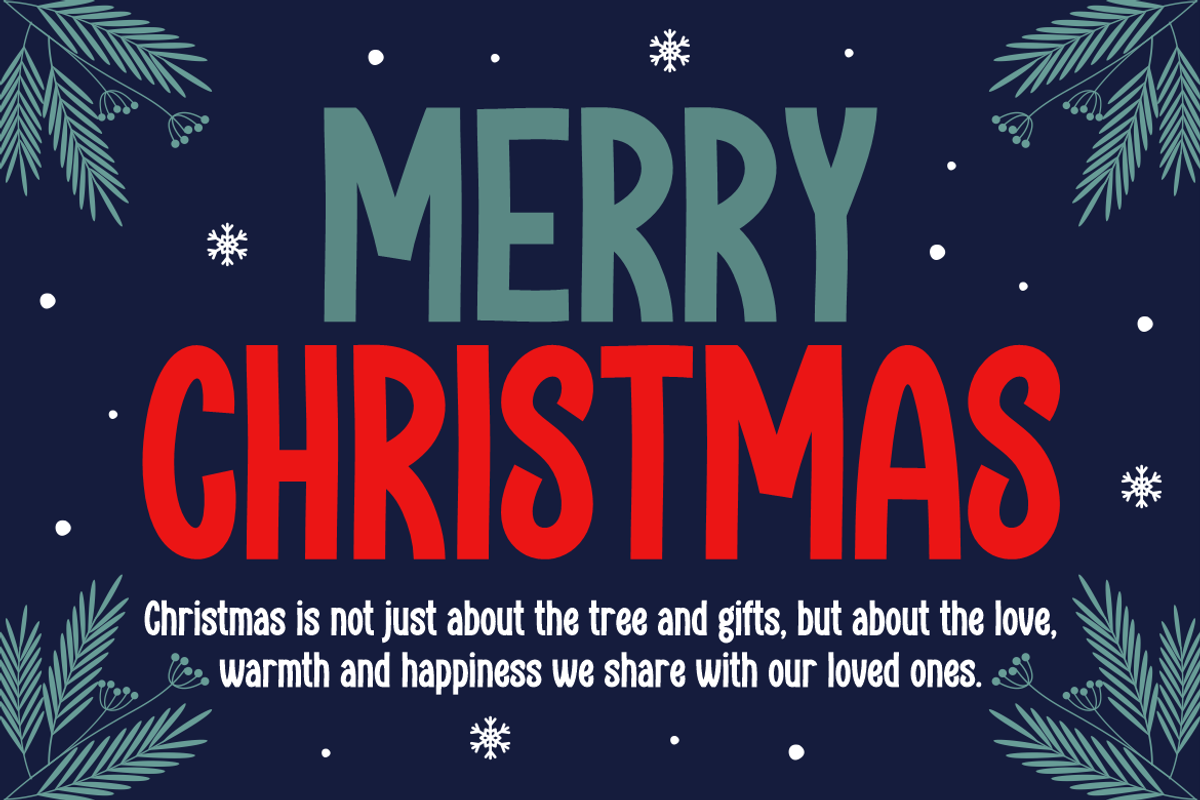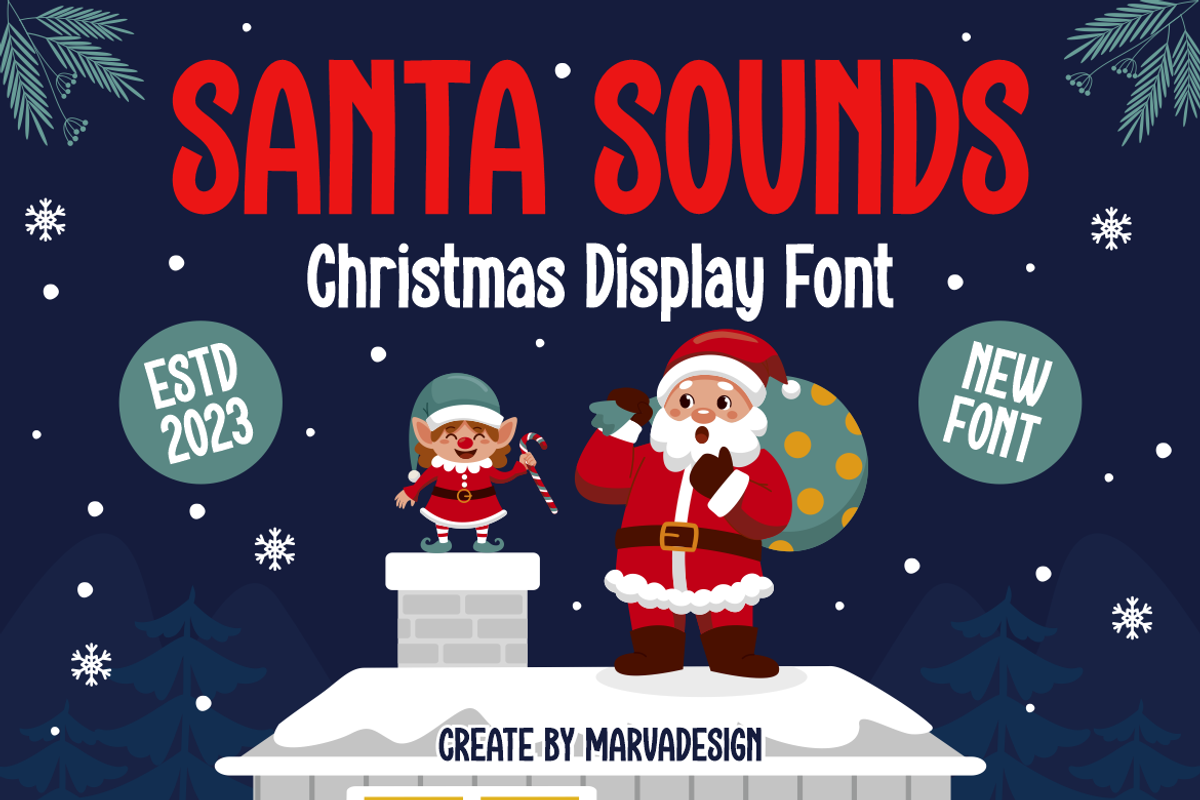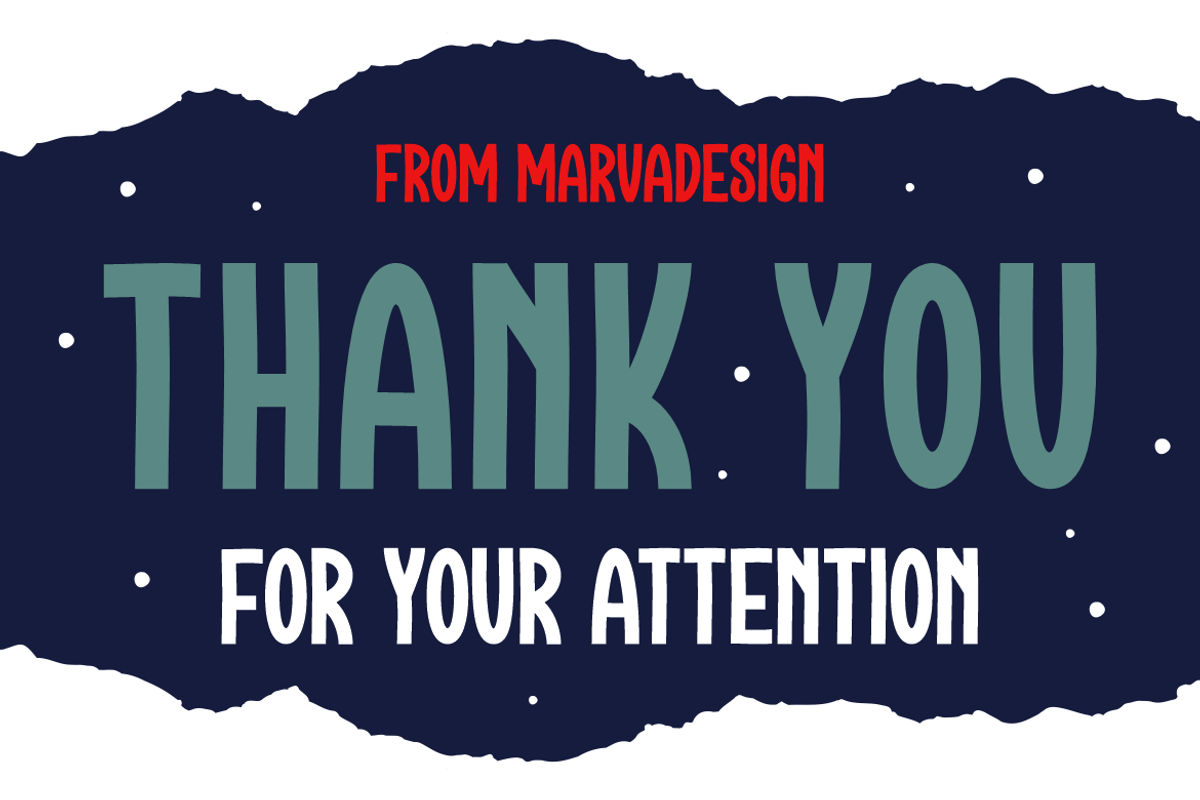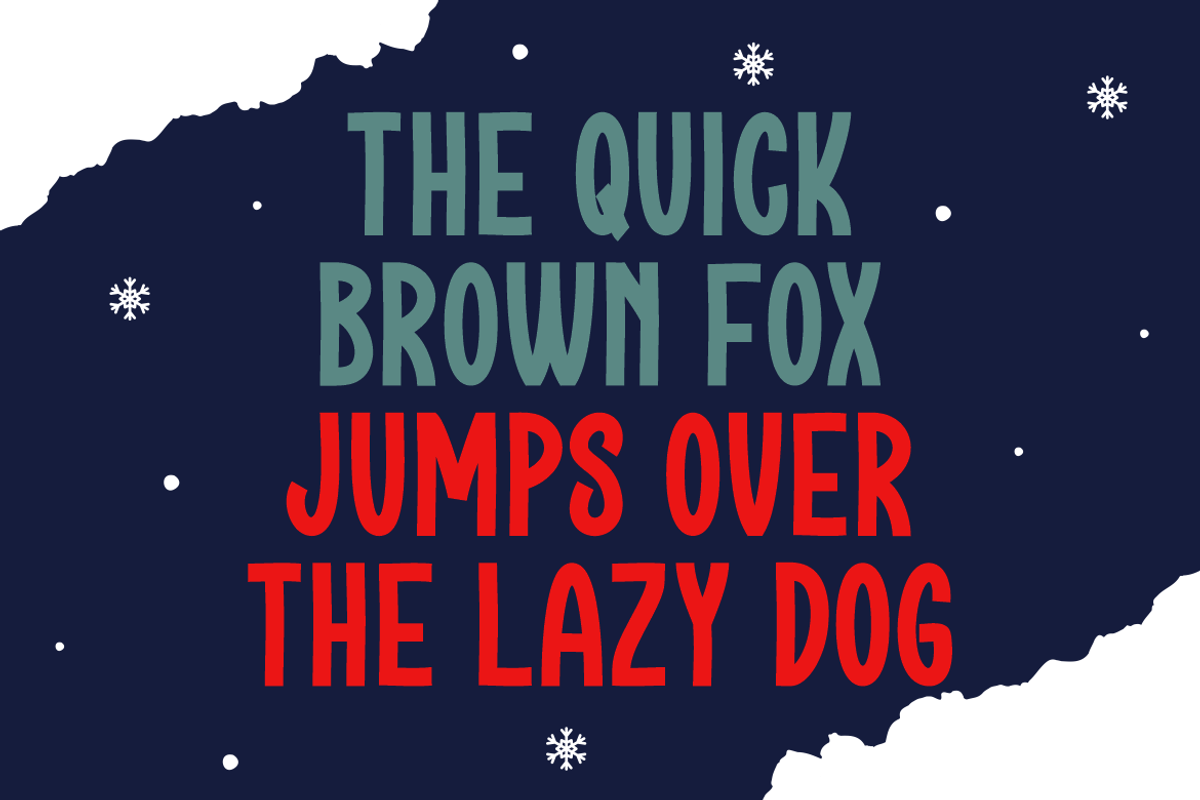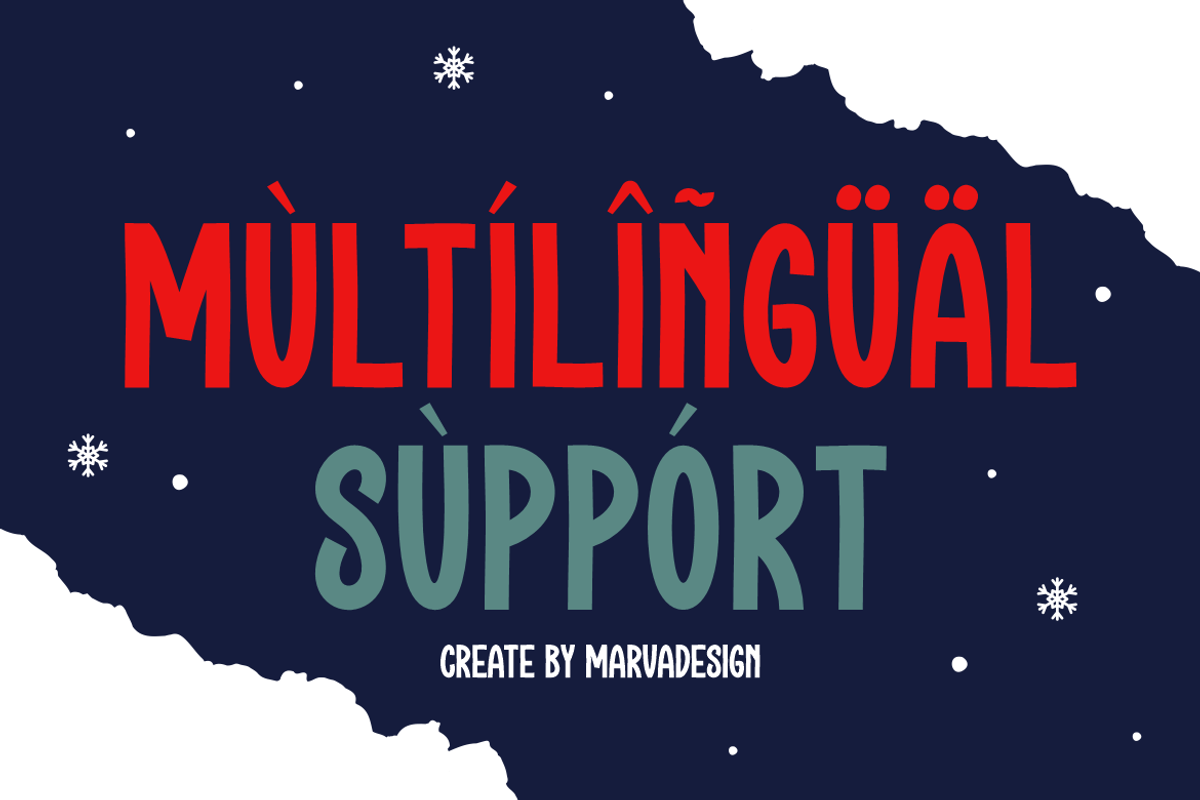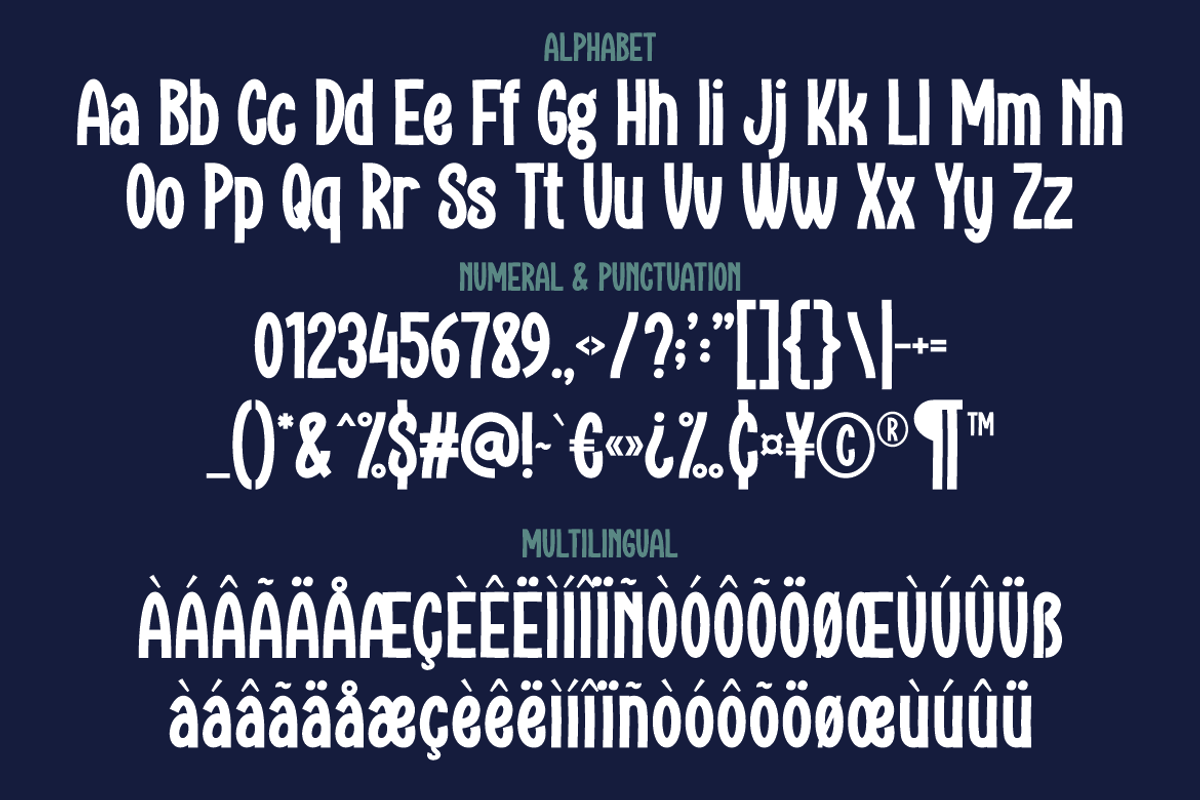
Santa Sounds - A Display Christmas
Introducing our new product Santa Sounds Font - A Display Christmas Font authentic display font. The font is suitable for any branding project like logo, Template Design, Product and many more. outstanding in a wide range of contexts.